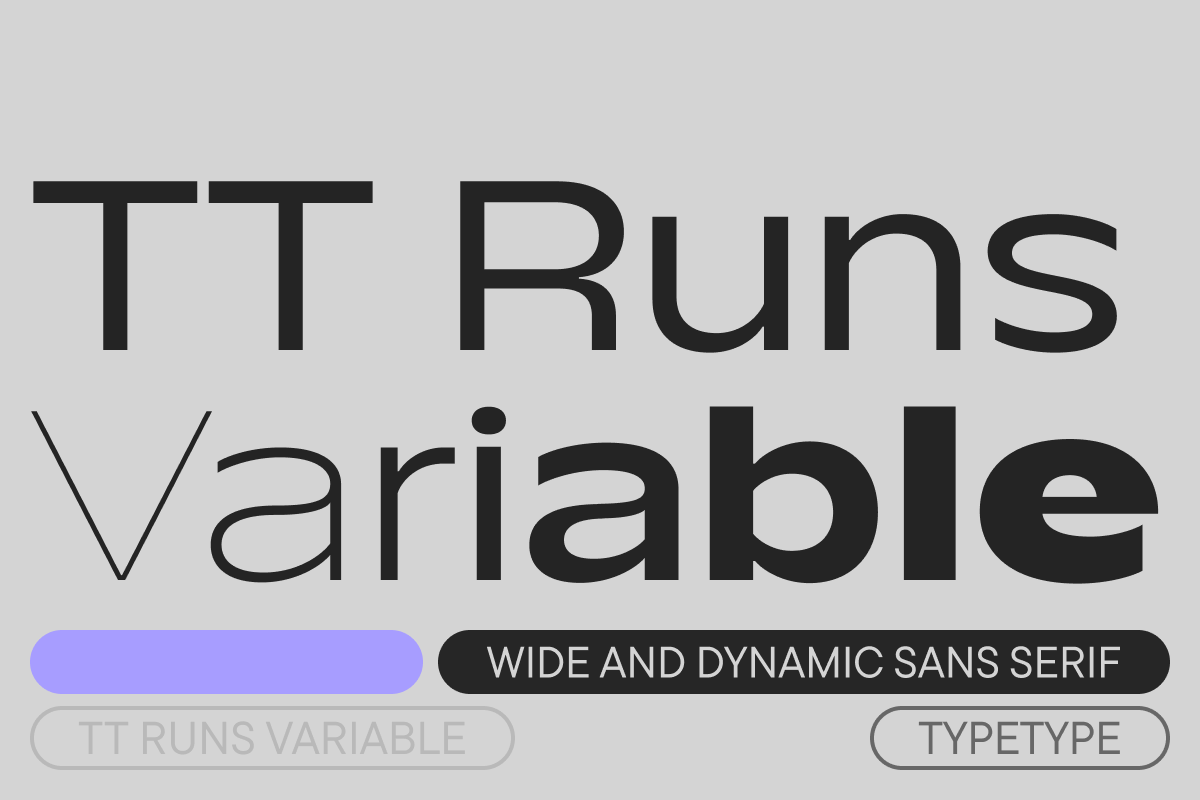
TT Runs Variable
TT Runs is a wide sans serif with unusual proportions. This font was designed for the sports industry. Before diving into the development, we thoroughly researched the identities of various Olympic venues and analyzed current sports brands. We made every effort to design a unique, stylish, modern font well-suited for the sports sector—and more!